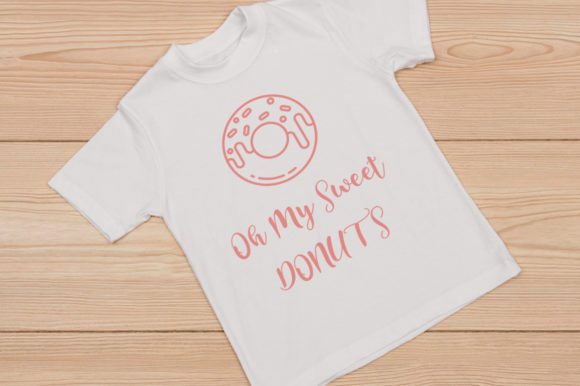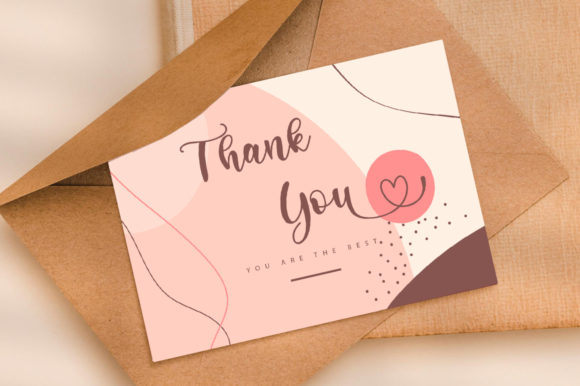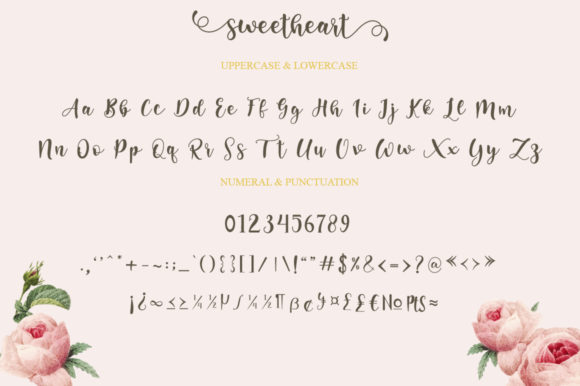
About Sweetheart Font
Sweetheart is a stunning handwritten font that effortlessly combines elegance with simplicity. With its refined and graceful letterforms, this font adds a touch of sophistication to any design project. Whether you’re creating logos, branding materials, social media graphics, or DIY crafts, Sweetheart will elevate your work to new heights.
The beauty of Sweetheart lies in its ability to strike a balance between a clean, minimalistic style and an inherent sense of charm. The letterforms are carefully crafted, resulting in smooth and flowing curves that exude a sense of grace and elegance. This font is designed to capture attention and make a lasting impression.
With its versatility, Sweetheart can be used across a wide range of projects. Its timeless appeal makes it suitable for various purposes, including logos, branding, social media posts, invitations, stationery, and more. The font’s clean lines and balanced proportions ensure legibility and readability, even in small sizes.
Sweetheart also features PUA encoding, which allows easy access to a vast selection of glyphs and swashes. This means you can customize and embellish your designs with a variety of decorative elements, adding a personalized touch to your typography.
Whether you’re aiming for a classic and sophisticated look or a modern and refined aesthetic, Sweetheart has you covered. Its versatility allows it to adapt to different design styles and themes, making it a valuable asset in your font collection.
In summary, Sweetheart is a remarkable handwritten font that combines elegance and simplicity. Its refined and graceful letterforms make it suitable for a wide range of design projects, and the inclusion of PUA encoding provides easy access to additional decorative elements. With Sweetheart, you can effortlessly bring a touch of sophistication to your logos, branding, social media graphics, and crafty DIY projects.